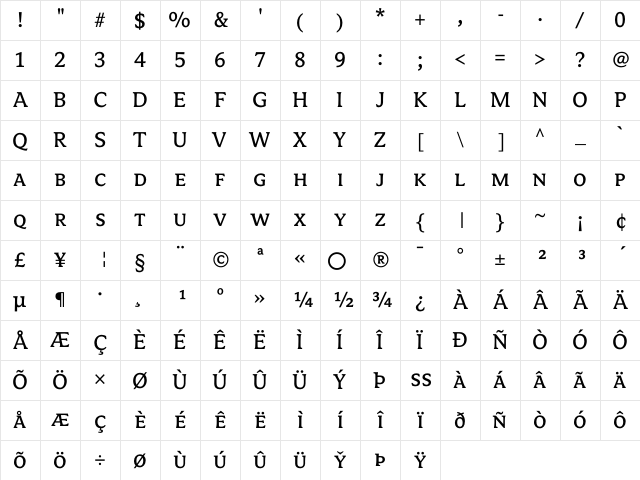
Avance Regular SC
Style: Regular SC
Avance Family
Avance Regular SC
Design Context for Avance
Avance is a composed and adaptable typeface that performs quietly and consistently across a wide range of design contexts.